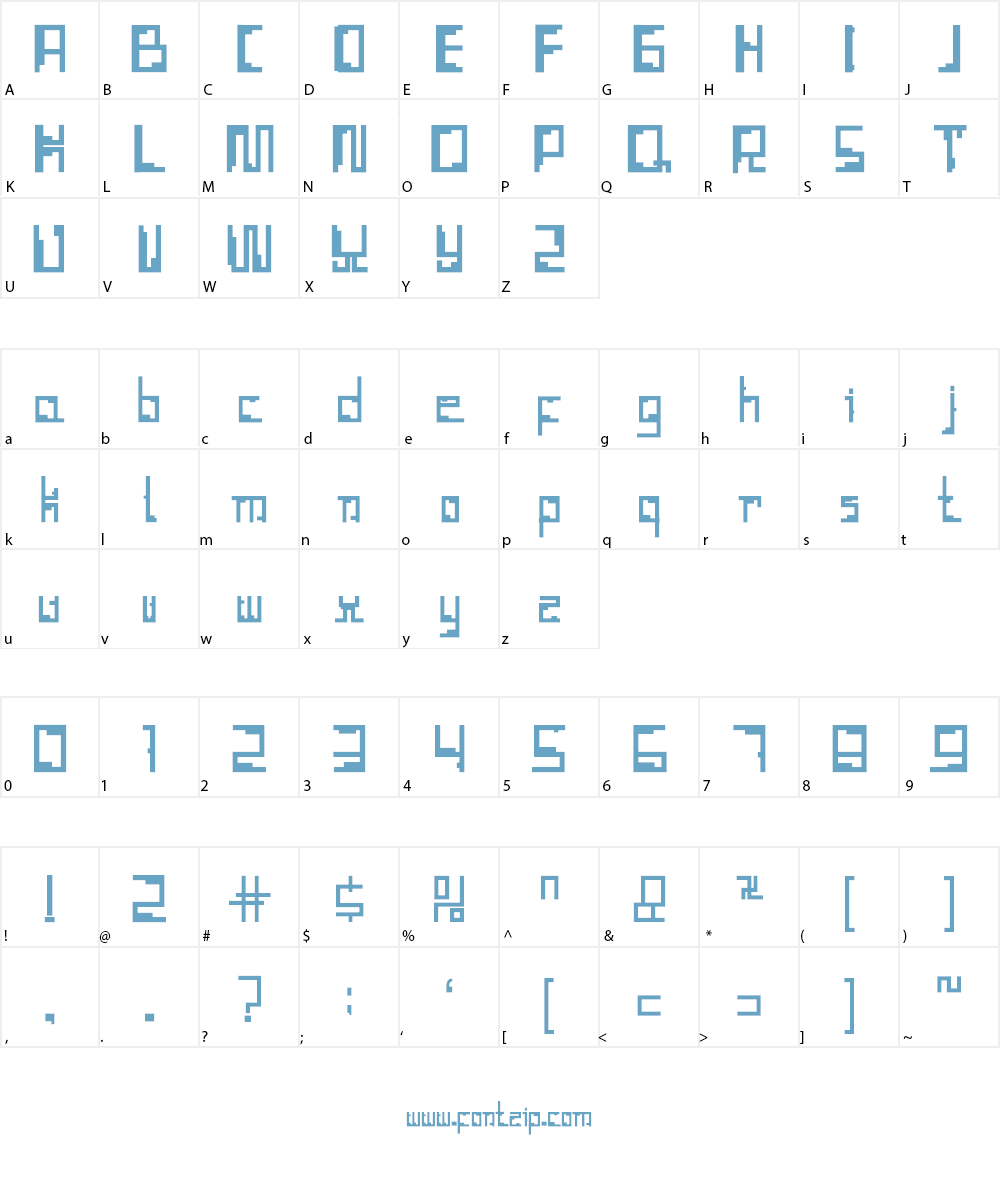
Tetris Hollow is font that represents edgy, classic, fun, and modern mixed with vintage.
This font is suitable for various projects, such as design, logo, quotes, social media posts, illustration, and many others.